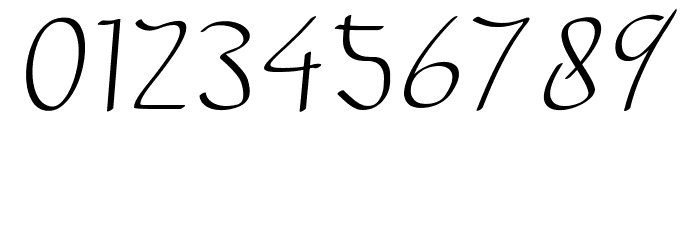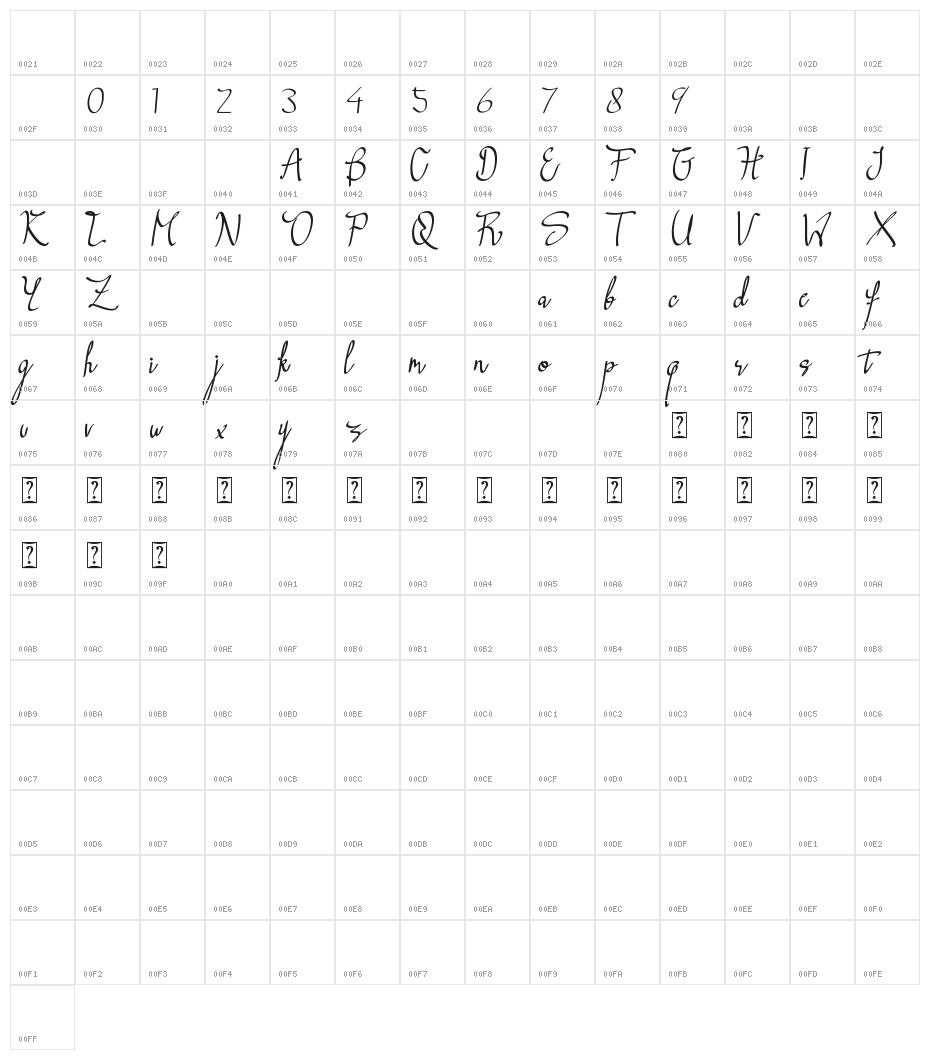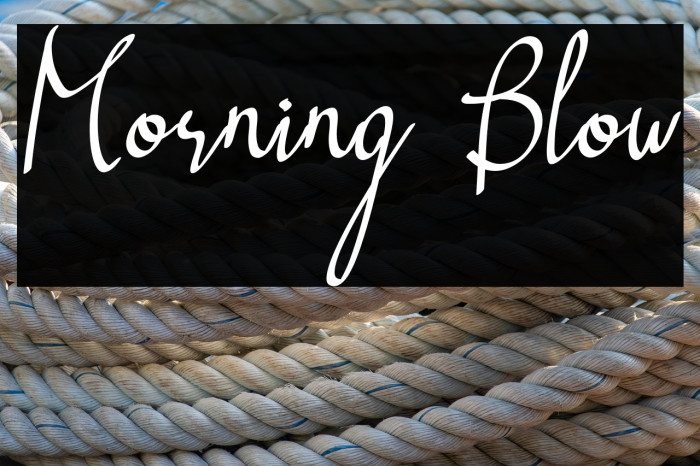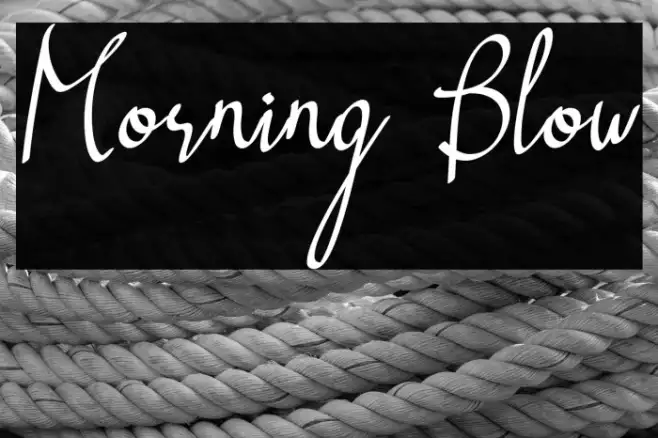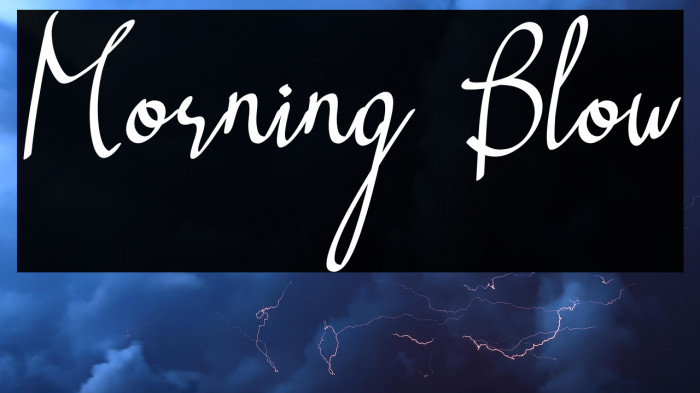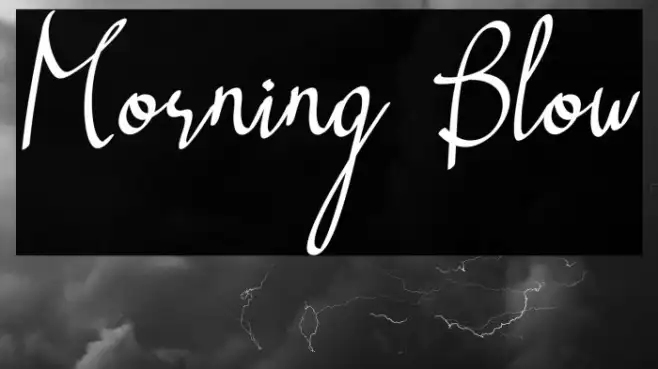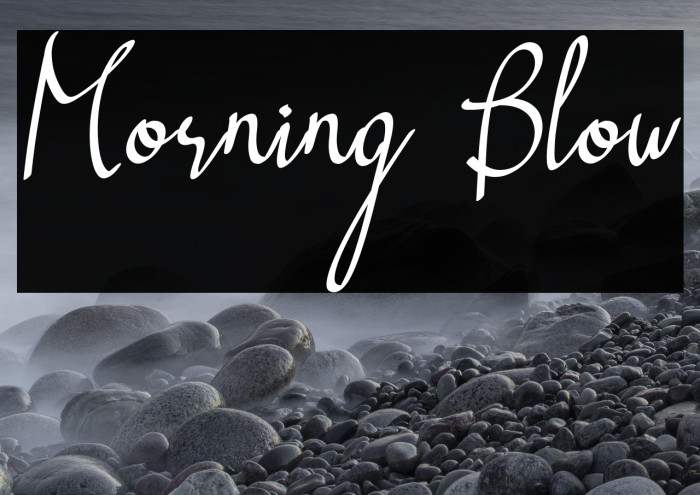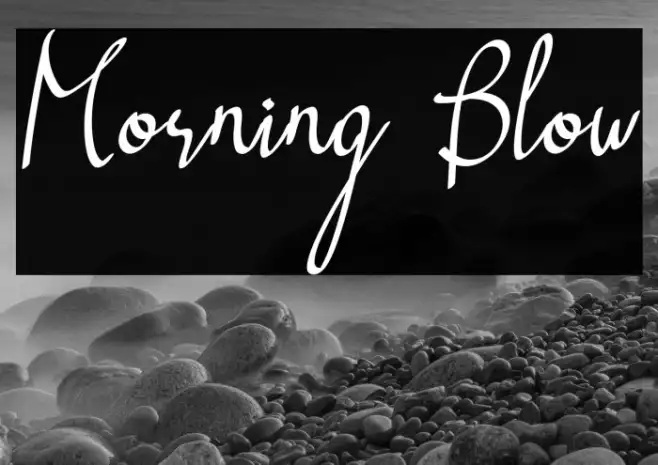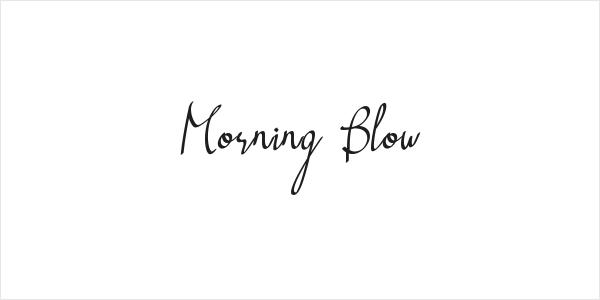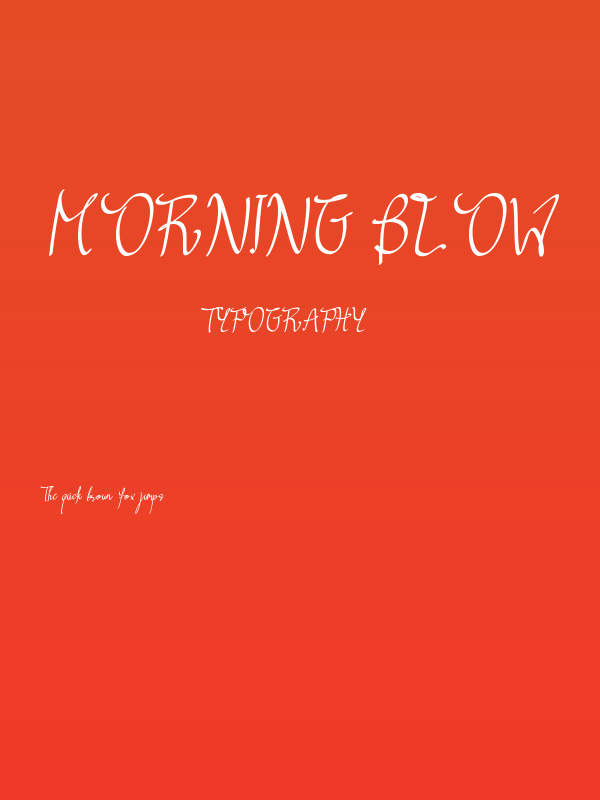
Morning Blow Font
Morning Blow Description
This font features a flowing, cursive style that mimics elegant handwriting. The uppercase letters are tall and slender, with graceful loops and curves that give a sense of movement and fluidity. The lowercase letters maintain a consistent slant, enhancing the handwritten feel, and are slightly more compact, which adds to the overall charm. Numbers are clear and legible, with a slight tilt that matches the letters. The special characters blend seamlessly with the rest of the font, maintaining the same elegant and fluid aesthetic. This font is perfect for projects that require a personal touch or a sense of sophistication.
Overall StyleElegant, Handwritten
Use CaseLogos, Invitations, Personal Branding
Proposed ProjectsIdeal for wedding invitations, greeting cards, personal branding, and elegant product packaging.